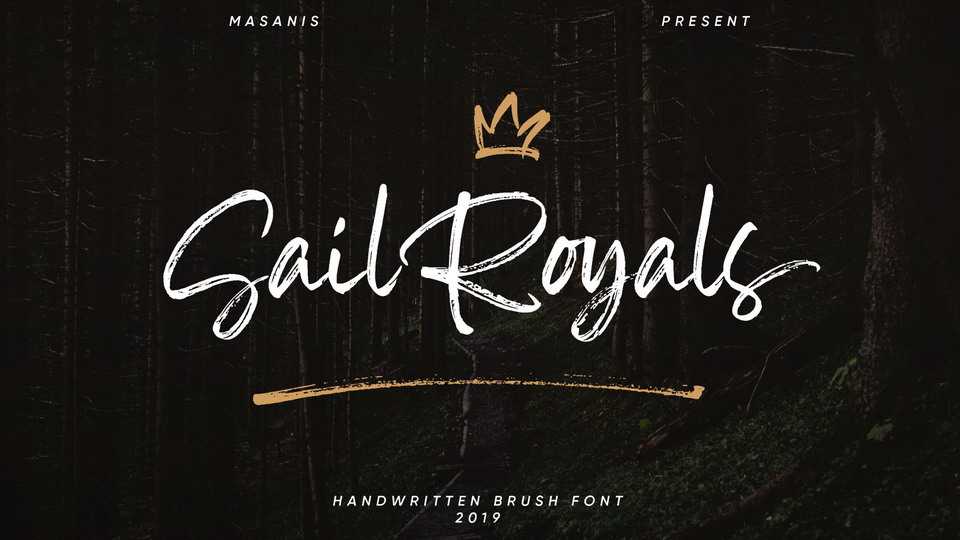
Download SailRoyals is a stylish handwritten font with a personal charm. With quick dry strokes and signature style, SailRoyals is perfect for branding projects, homeware designs, product packaging – or simply as a stylish text overlay to any background image like quote images.
Designer: Mas Anis Studio